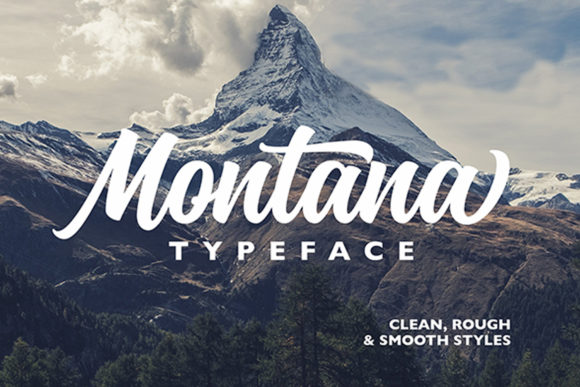
Introducing the Montana Font, the perfect script font for anyone looking to add a touch of elegance and style to their designs. Created by the renowned getstudio, Montana is a beautiful handwritten font that is sure to leave a lasting impression on your audience.
With its thick and cursive lettering, Montana exudes strength, confidence, and dynamism, making it the ideal choice for headlines and logotypes. Whether you're designing a logo for your brand or creating an eye-catching banner for your website, Montana will help you stand out from the crowd.
What sets Montana apart from other script fonts is its nostalgic character. This font has been crafted to add a touch of old-world charm to your designs, making it perfect for anyone looking to create a vintage look and feel. And thanks to its PUA encoding, accessing all of the glyphs and swashes is a breeze!